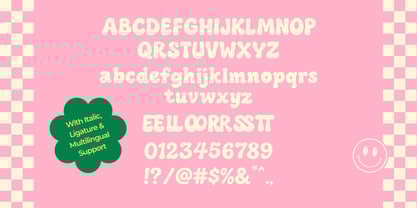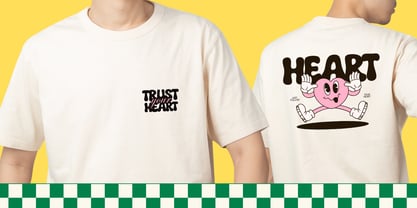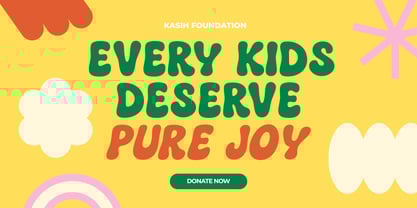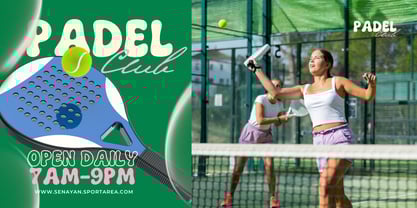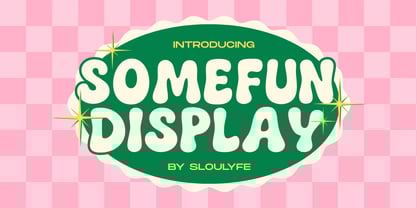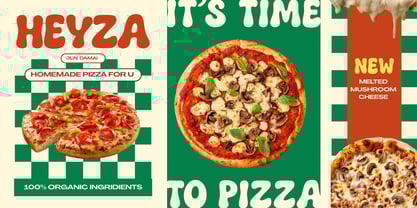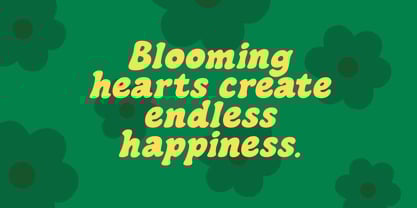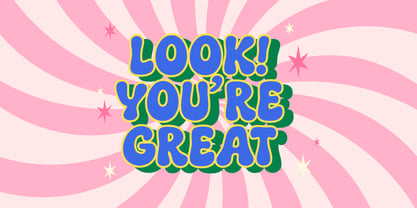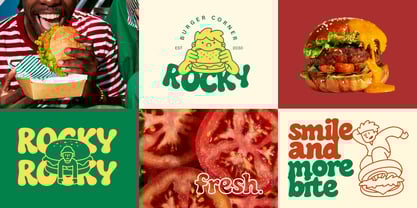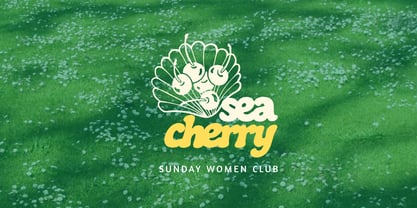
Somefun
by Sloulyfe Studio
The Somefun Font Family was designed by Amelia Dian Isnaini and published by Sloulyfe Studio. Somefun contains 2 styles and family package options.
Somefun is a fun, bubbly display font made to bring instant joy to your designs. Its chunky rounded shapes and groovy retro vibe give off a playful, friendly feel that works great for posters, kids’ projects, packaging, or anything that needs a happy pop. Simple, bold, and full of charm, Somefun is all about keeping things light and fun while still making a strong impact.
• Regular & Italic
• Uppercase & lowercase
• Numbers and punctuation
• Alternates or Ligatures